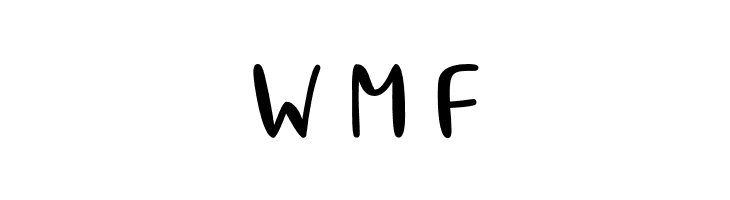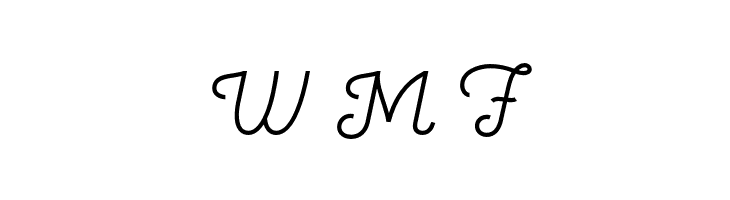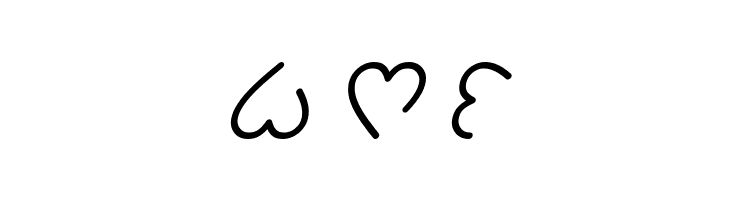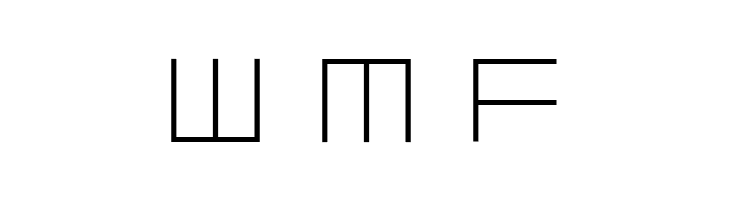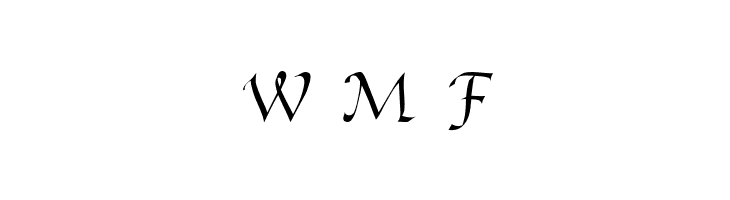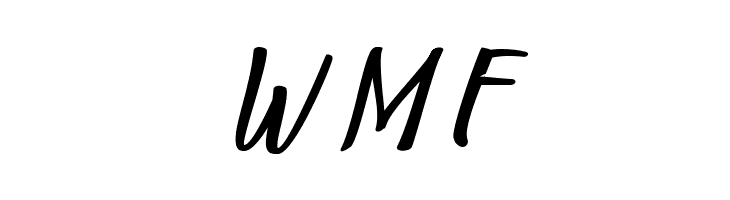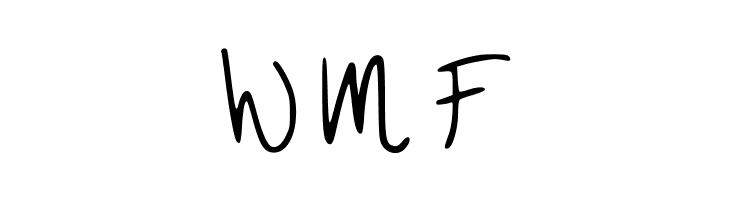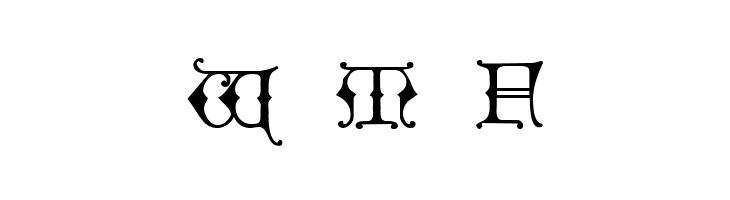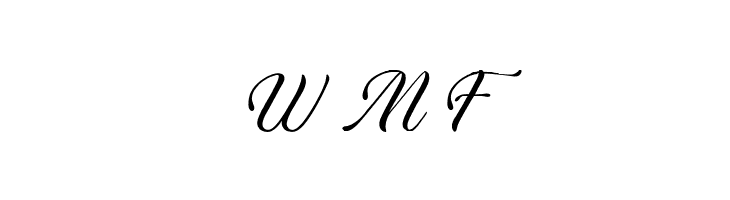
A whimsical, heart-themed font with smooth, flowing strokes and medium weight.
( ADavis )
A lively cursive font with smooth, flowing strokes and a handwritten aesthetic.
( Addax Designs - www.nt-p.net/adx/index.html )
A geometric, pixelated font with a modern, digital aesthetic.
( AgaSilva - agasilva.com )
A decorative, medieval-inspired font with intricate flourishes.
( Angst )
An elegant, calligraphic font with flowing curves and pointed serifs.
( Billy Argel - billyargel.com/ )
A bold, flowing script font with elegant curves and smooth strokes.
( CRU-Dissaramas - artd2304-dissaramas-5411307324.blogspot.com/ )
A bold, italic script font with decorative swirls and loops.
( Character )
A rugged, distressed font with a bold and textured appearance.
( Character )
A tall, narrow font with a modern and sleek design.
( Chequered Ink - chequered.ink/ )
A playful, handwritten font with bold, rounded strokes and a casual style.
( Cioroianu Stefan Cristian )
An ornate Blackletter font with intricate, angular designs and historical elegance.
An elegant script font with flowing, interconnected letters and a calligraphic style.
( Digital Type Foundry - www.digitaltypefoundry.com/ )
A runic-inspired font with angular, geometric shapes and medium contrast.
( Eutypoce - www.eutypoce.com/ )
A pixelated, retro-style font with a digital, geometric design.
( Falexoo - en.fakoo.de )
A dot-based, geometric font with a futuristic and digital aesthetic.
( Fereydoun - fereydoun.myartsonline.com )
A bold, dynamic font with sharp, angular lines and high contrast, inspired by ancient scripts.
( Fontomen - www.algonet.se/~j-j/ )
A decorative script font with elegant, flowing letterforms and intricate flourishes.
( Freddiemerqwerty - freddiemerqwerty.weebly.com/ )
A playful and casual handwritten font with fluid, expressive strokes.
( GeelynEdits - plus.google.com/u/0/108461348931992643310/ )
A super thin, elegant handwriting-style font with a modern touch.
( Google - developer.android.com )
A geometric, angular script with uniform line thickness enclosed in square boxes.
( Helldunkel - www.helldunkel.com )
A bold, geometric font with blocky, angular shapes and a modern industrial feel.
( Illustrator Georgie Retzer - www.facebook.com/illustratorg )
A medieval gothic font with ornate, angular letterforms and a historical manuscript feel.
( Intellecta Design - new.myfonts.com/search/intellecta/fonts/?sort=sales?refby=paulow )
A traditional blackletter font with ornate, angular lines and bold strokes.
( James Fordyce )
An ornate Gothic font with intricate detailing and medieval flair.
( Julia Guinto )
A bold, expressive script font with fluid, cursive strokes and decorative flourishes.
( Konstantine Studio - www.behance.net/konstantinestudio )
An elegant cursive font with flowing, ornate letters and graceful connections.
( Misti's Fonts - mistifonts.com/ )
A bold, cursive font with elegant curves and expressive flourishes.
( Misti's Fonts - mistifonts.com/ )
A playful, handwritten font with smooth, rounded edges and a whimsical style.
( Misti's Fonts - mistifonts.com/ )
A romantic script font with heart motifs and a whimsical, flowing style.
( Misti's Fonts - mistifonts.com/ )
A graceful calligraphic font with elegant loops and fluid strokes.
( Mouser Fonts - www.mouserfonts.com/ )
A classic, elegant calligraphic font with graceful curves and fluid motion.
( Nasir Udin - creativemarket.com/vectro?u=vectro )
A flowing cursive script with elegant loops and smooth transitions.
( Pete Klassen - www.thehutt.de/tolkien/fonts.html )
A bold, medieval-inspired font with sharp angles and smooth curves.
( Peter S. Baker - faculty.virginia.edu/oldenglish/ )
A bold, italicized serif font with a classic and elegant style.